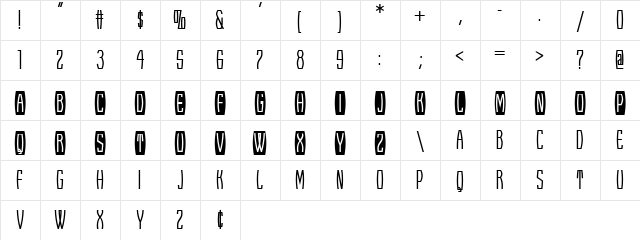
EdselFont Regular Font Preview
EdselFont Regular
EdselFont Regular Font Details
Design Context for EdselFont Typeface
EdselFont is a composed and adaptable typeface that performs quietly and consistently across a wide range of design contexts.